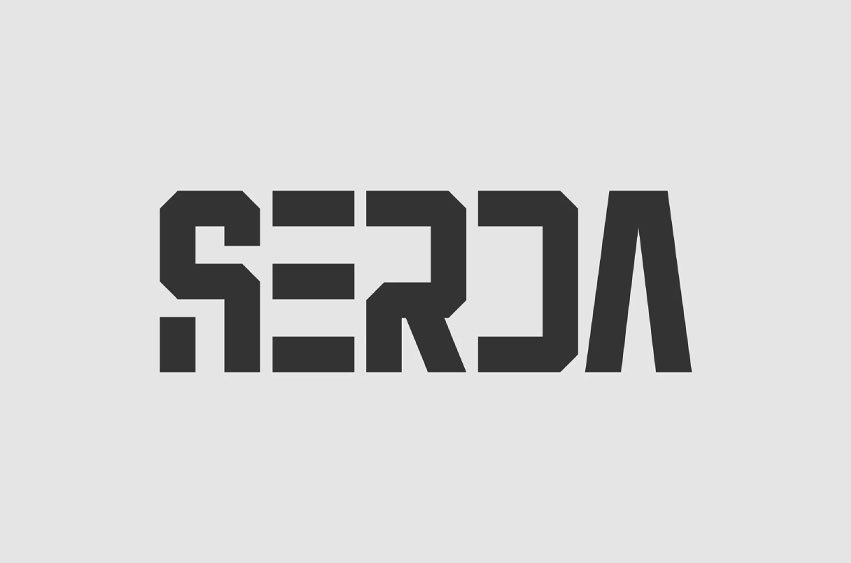
Serda Font Retro Sport Sans is a bold and authentic display font. The font is suitable for any branding project like logo, esport, and many more.
outstanding in a wide range of contexts.